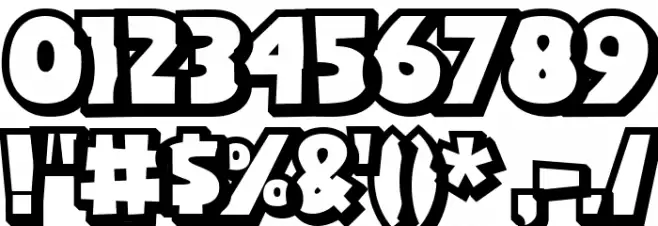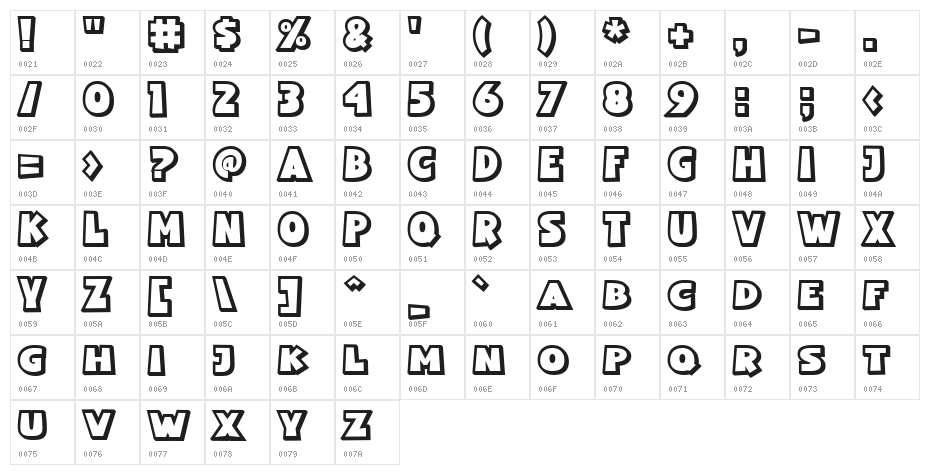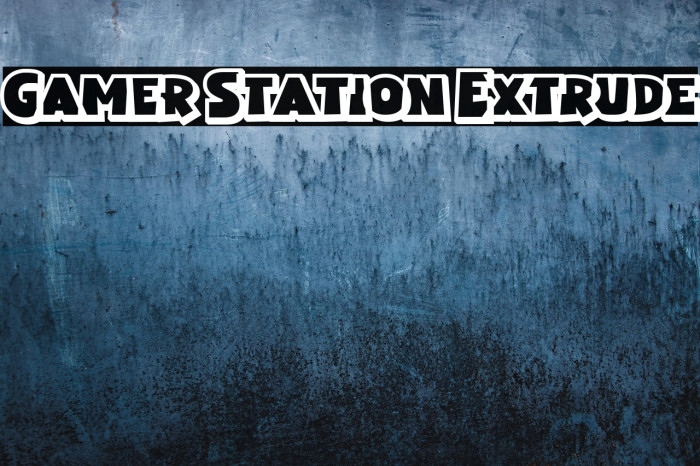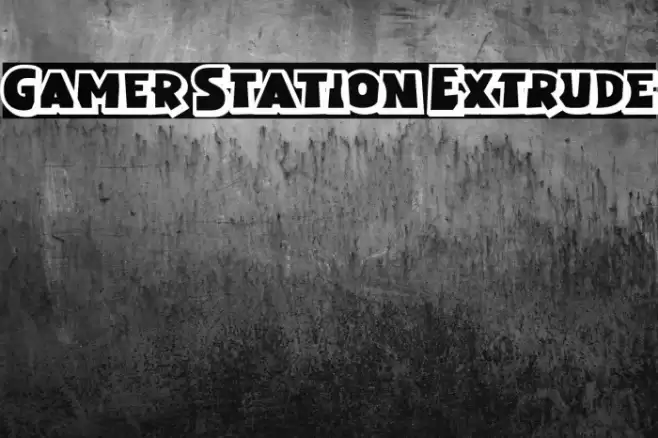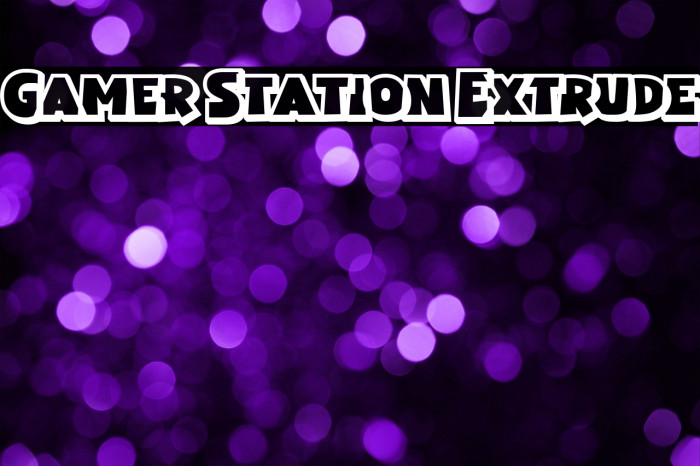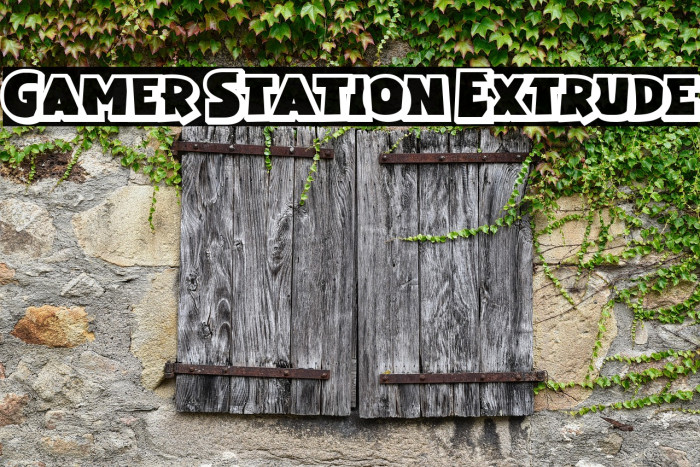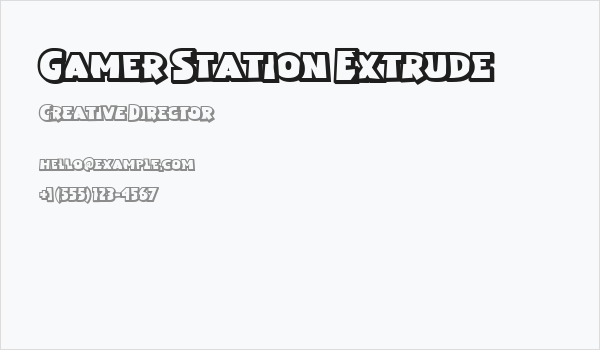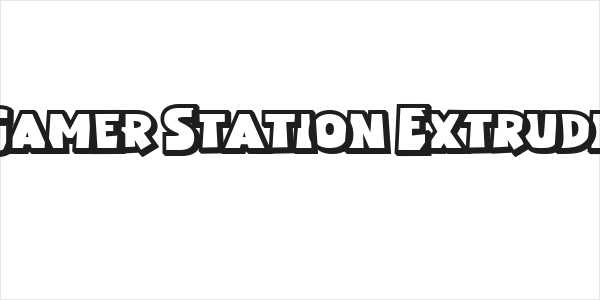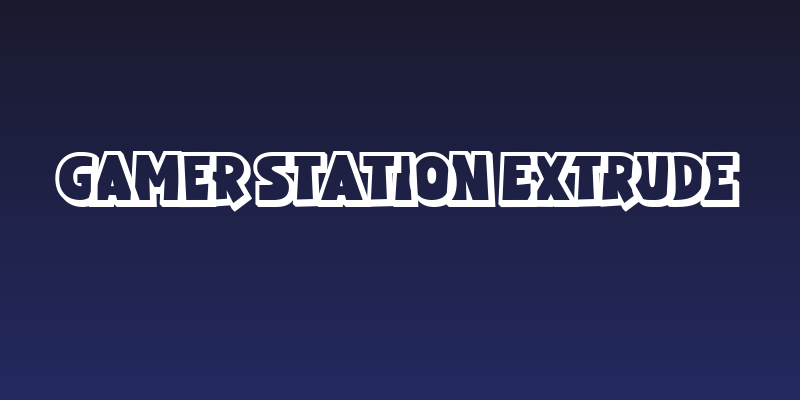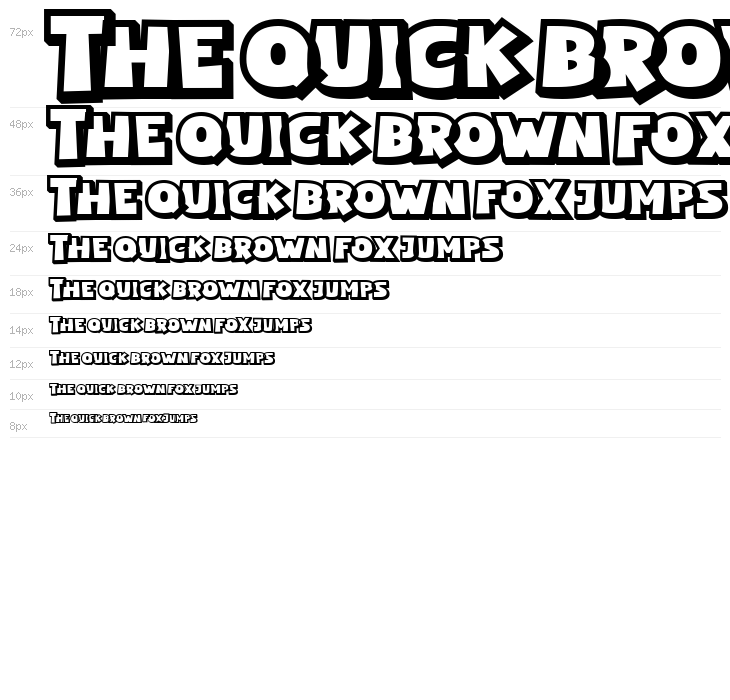
Gamer Station Extrude Font
Gamer Station Extrude Description
This font features bold, blocky characters with a strong, extruded 3D effect, giving it a dynamic and impactful appearance. The letters are uppercase and lowercase, with a consistent thickness that enhances readability while maintaining a playful and energetic style. The numbers and special characters follow the same design principles, ensuring uniformity across all glyphs. The font's boldness and unique style make it ideal for projects that require a strong visual presence.
| Proposed Projects | Perfect for gaming logos, posters, merchandise, and any project needing a bold, eye-catching font. |